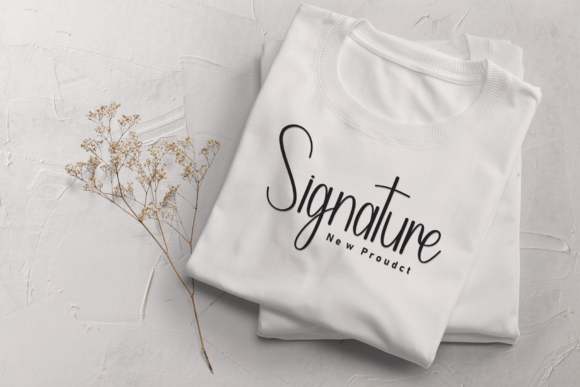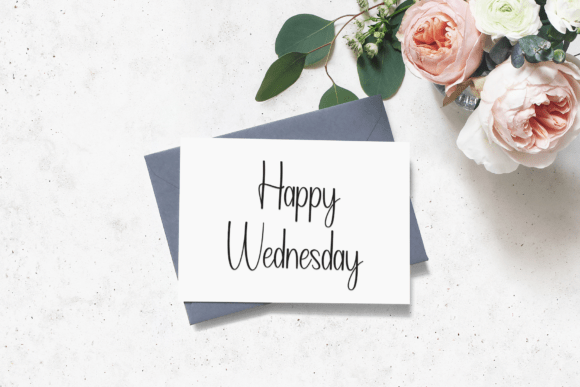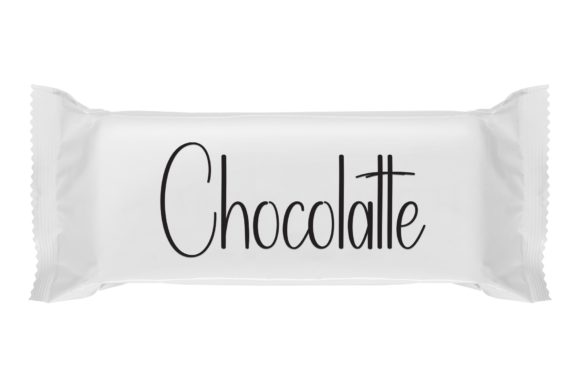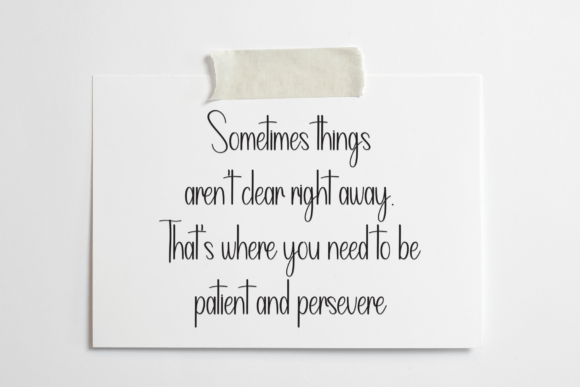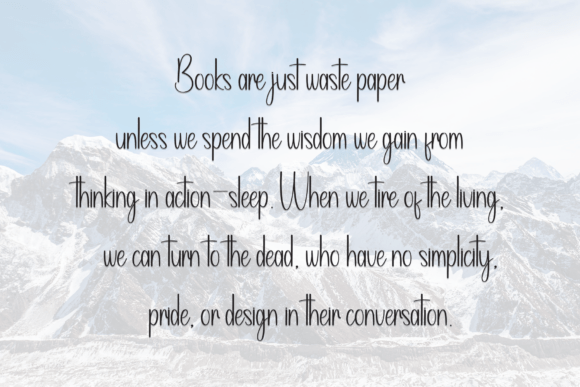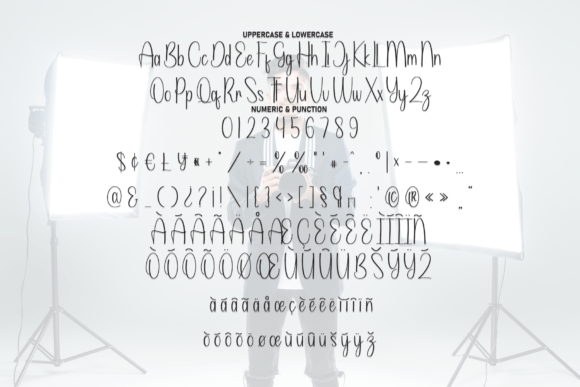
Introducing Delighter Font: Elevate Your Designs with Artistic Flair and Contemporary Elegance
In the world of typography, fonts play a crucial role in conveying the tone and personality of a design. For designers and crafters seeking to add a touch of sophistication and creativity to their work, Delighter Font is an exceptional choice. This stylish script font is designed to bring a modern twist to traditional hand-painted calligraphy, making it perfect for a wide range of applications, from logos and invitations to packaging and social media graphics.
The Artistic Essence of Delighter Font
Delighter Font is characterized by its fluid brush strokes, dynamic curves, and expressive letterforms. These features combine to create a font that exudes artistic flair and contemporary elegance. The fluid brush strokes give the font a natural, hand-painted feel, while the dynamic curves and expressive letterforms add a level of sophistication and refinement. The result is a font that captures the essence of hand-painted calligraphy with a modern twist.
Versatility and Visual Impact
One of the key benefits of Delighter Font is its versatility. Its natural flow and vibrant character make it suitable for a wide range of design applications. Whether you’re creating a logo, invitation, packaging, or social media graphic, Delighter Font adds a creative and sophisticated touch to any design. The font’s expressive letterforms and dynamic curves also ensure that it delivers both visual impact and versatility, making it an excellent choice for designers and crafters looking to elevate their work.
Ideal Applications for Delighter Font
Delighter Font is ideal for a variety of design applications, including:
- Logos: Create a lasting impression with a logo that exudes elegance and sophistication.
- Invitations: Add a touch of refinement and luxury to your invitations, perfect for weddings, parties, and other special events.
- Packaging: Elevate your product packaging with a font that conveys creativity and sophistication.
- Social Media Graphics: Make your social media graphics stand out with a font that adds a creative and artistic touch.
Why Choose Delighter Font?
With so many fonts available, why choose Delighter Font? Here are just a few reasons:
- Unique and Expressive: Delighter Font offers a unique and expressive design that sets it apart from other fonts.
- Highly Versatile: The font’s natural flow and vibrant character make it suitable for a wide range of design applications.
- Elegant and Sophisticated: Delighter Font exudes elegance and sophistication, making it perfect for designs that require a touch of refinement.
In conclusion, Delighter Font is an exceptional choice for designers and crafters seeking to add a touch of artistic flair and contemporary elegance to their work. With its fluid brush strokes, dynamic curves, and expressive letterforms, this stylish script font captures the essence of hand-painted calligraphy with a modern twist. Its versatility, visual impact, and elegant design make it perfect for a wide range of applications, from logos and invitations to packaging and social media graphics. Whether you’re looking to create a lasting impression or simply want to elevate your designs, Delighter Font is an excellent choice.